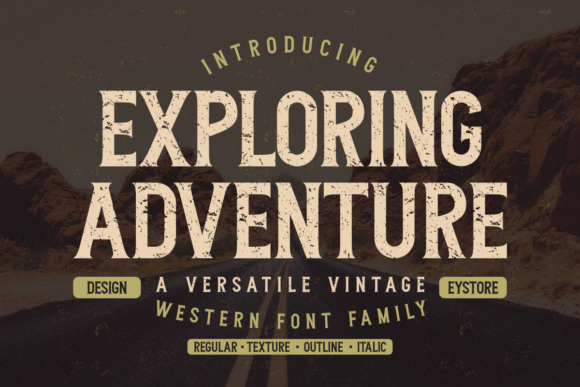
Unleash the Spirit of Adventure in Your Design
Have you ever been on a road trip, hiking through the mountains, or exploring a new city and felt the rush of excitement and freedom? That’s the same feeling we get when we stumble upon the perfect font to bring our creative vision to life. For designers looking to infuse their projects with a bold, rugged, and timeless character, there’s one font that stands out from the rest – the Exploring Adventure Font.
This versatile vintage display font family is designed to transport you to a world of adventure and nostalgia. With its strong letterforms, distressed details, and classic vintage aesthetic, the Exploring Adventure Font delivers an authentic handcrafted feel that works beautifully for both modern and nostalgic designs. Whether you’re designing logos, posters, or social media graphics, this font is sure to add a touch of adventure and excitement to your work.
Exploring Adventure Font Key Features
- Font Family: Exploring Adventure Font is a unique, hand-drawn font family designed for adventure and travel-related content.
- Character Set: The font family includes over 1,000 characters, including uppercase and lowercase letters, numbers, punctuation, and special characters.
- Unique Characteristics: The font features a mix of hand-drawn and digital elements, giving it a distinctive, adventurous feel.
Exploring Adventure Font Review
As a designer, I was excited to dive into the Exploring Adventure Font and see what it had to offer. ✨
- The font’s adventurous vibe is perfect for travel, outdoor, or action-packed themes. It’s a great choice for websites, magazines, or social media that need a bold and energetic feel.
- The font’s versatility shines through in its various weights and styles, making it easy to use in a range of applications, from headlines to body text.
- The font’s unique letterforms and flourishes add a touch of personality and whimsy, making it a great choice for designers looking to add some visual interest to their projects.
- ⚠️ The font may be too bold or overpowering for more subtle or delicate designs. It’s essential to use it sparingly and thoughtfully to avoid overwhelming the viewer.
- ⚠️ Some characters may not be perfectly kerned, which can affect readability, especially in longer blocks of text.
Overall, I think the Exploring Adventure Font is a great addition to any designer’s toolkit. While it may have some limitations, its unique style and versatility make it a great choice for the right projects. With some careful consideration and use, this font can add a fun and adventurous touch to your designs.
Adventure Font is perfect for creating bold, eye-catching titles and headings for travel brochures, outdoor gear advertisements, or adventure-themed websites.